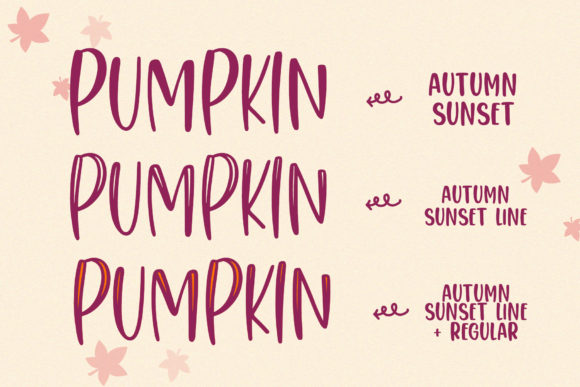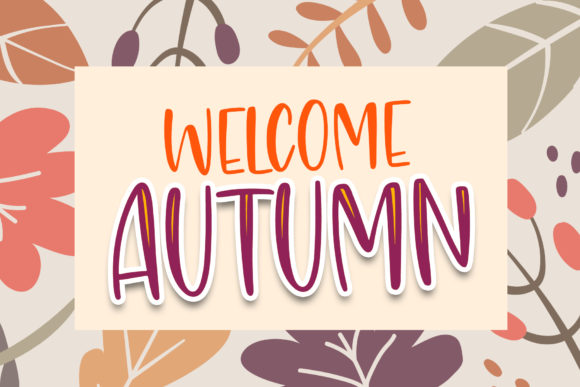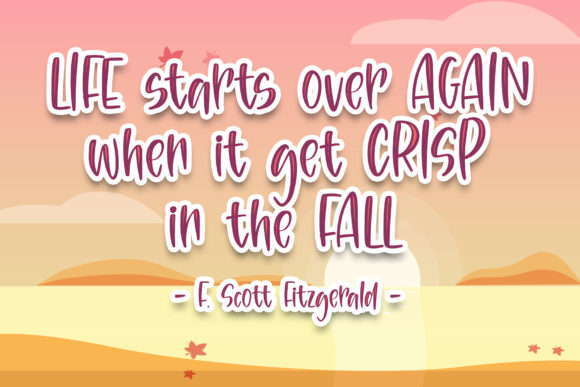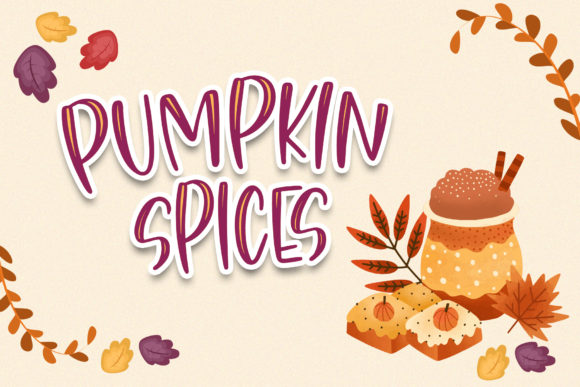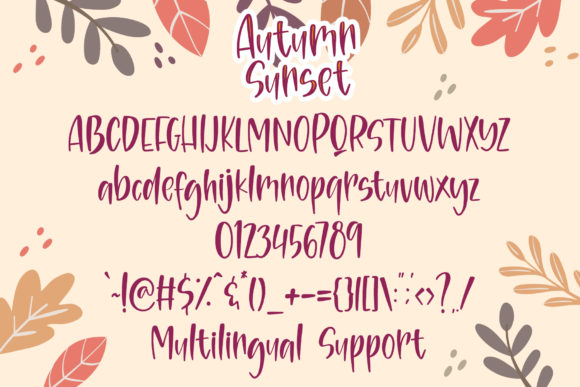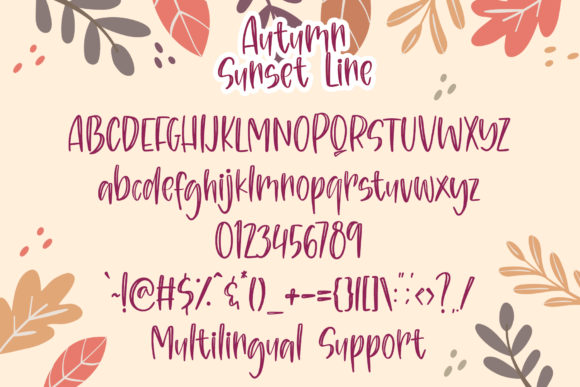
Autumn Sunset Font
About Autumn Sunset Font
Autumn Sunset is a fun and gorgeous handwritten font. Fall in love with its incredibly versatile style and use it to create gorgeous wedding invitations, beautiful stationary art, eye-catching social media posts, and much more!